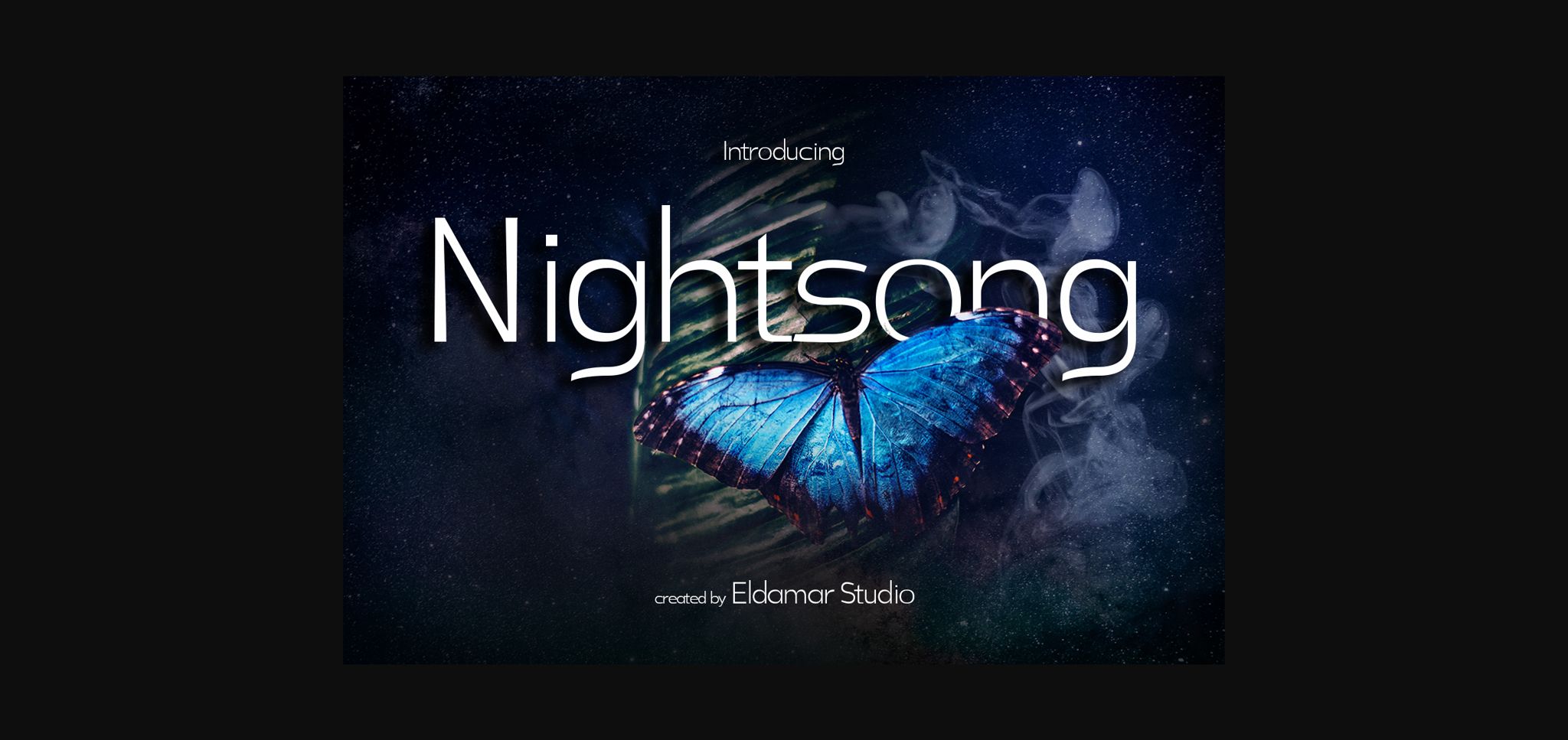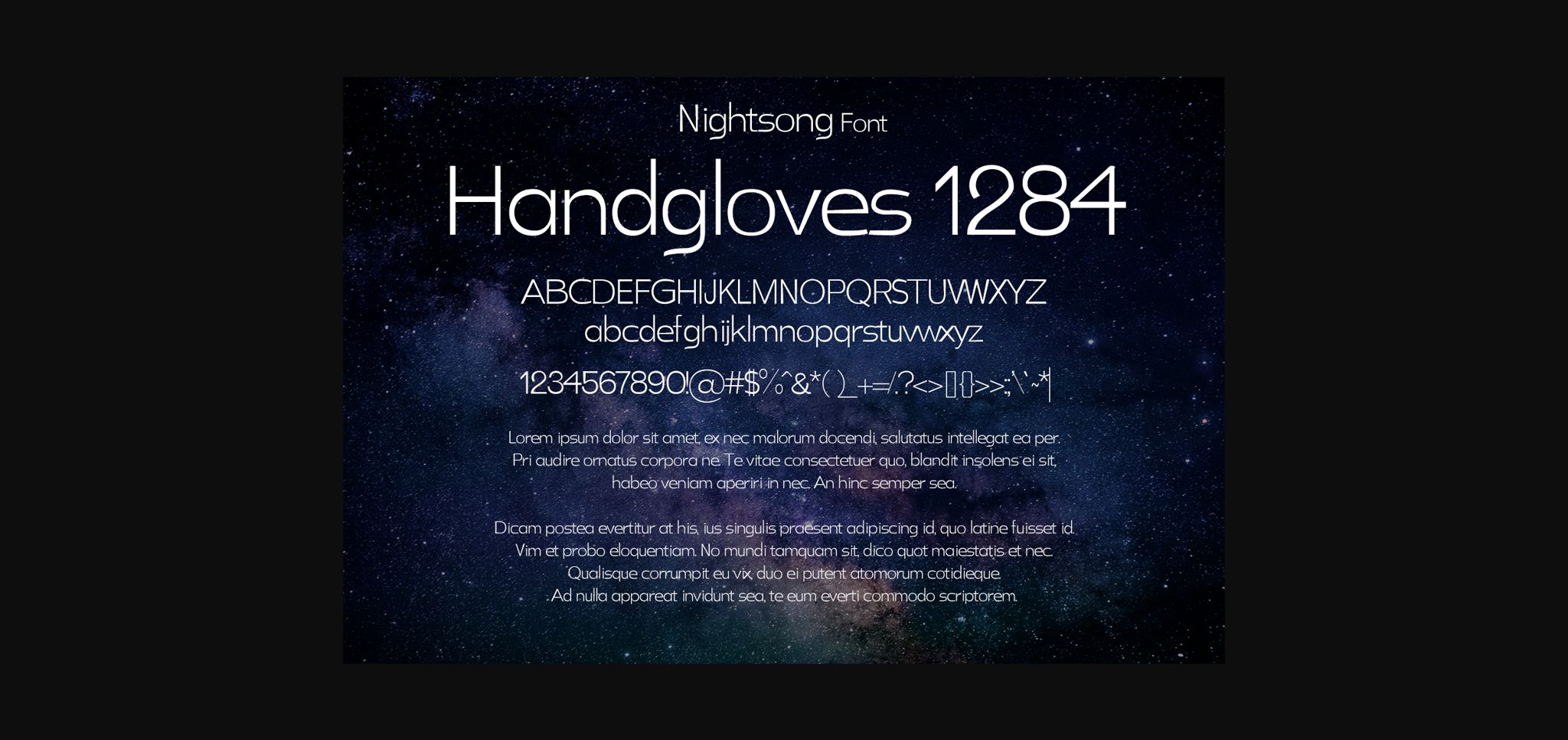
Nightsong Font
About Nightsong Font
Nightsong is a neat and minimalistic sans serif font. It has a clean, thin and smooth vibe and it will be a hit for any design that you want to add it to.